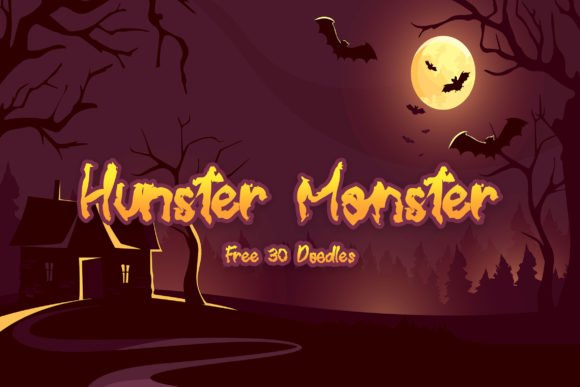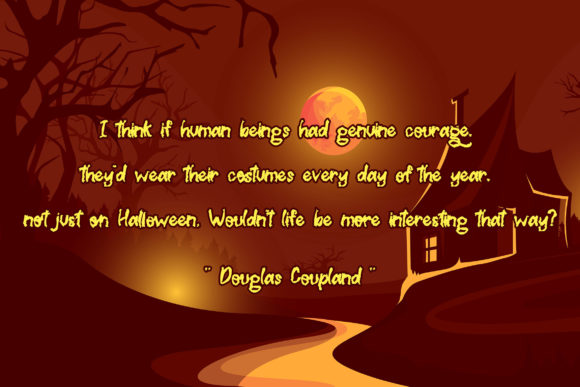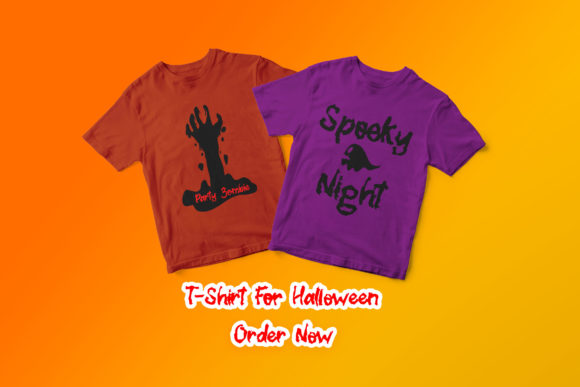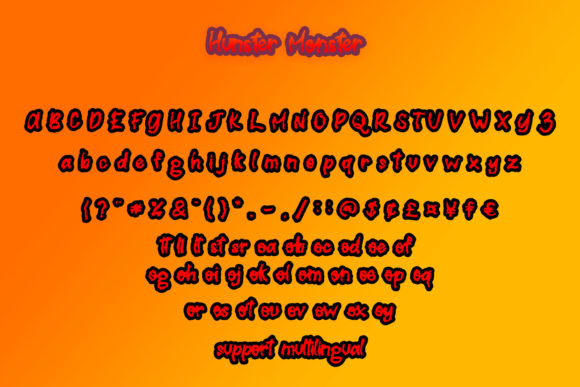
The Monster in Your Fonts: Unlocking Creativity with Hunster Monster Font
As designers, we’ve all been there – staring at a blank canvas, trying to conjure up the perfect design. But sometimes, it’s not about what you add, but what you use. For me, that magic moment came when I stumbled upon Hunster Monster Font. It was like unleashing a monster from the depths of creativity – and I knew I had to share it with the world.
Hunster Monster Font is a unique display font that’s tailor-made for those spooky, kooky, and just plain fun designs. Its quirky characters and bold lines are perfect for adding a touch of personality to your Halloween-themed projects. Whether you’re designing invitations, party decorations, or social media graphics, Hunster Monster Font is the perfect tool to bring your ideas to life.
Hunster Monster Font Key Features
- Unique Characteristics: The Hunster Monster Font features a playful, monster-inspired design with bold lines, rounded edges, and a mix of uppercase and lowercase letters, making it perfect for creating fun and quirky designs.
- Font Style: The font is available in a single style, but it can be used to create a variety of effects, from bold and playful to subtle and elegant, depending on the context and design application.
Hunster Monster Font Review
First impressions of the Hunster Monster Font are…mixed. Let’s start with the positives:
- ✨ The font has a unique, playful vibe that could be great for kids’ projects or entertainment-related designs.
- ✨ The Hunster Monster Font comes in a variety of weights and styles, making it easy to mix and match for different design needs.
- ✨ The font is highly customizable, with options for adjusting letter spacing and kerning.
- ⚠️ The Hunster Monster Font is not ideal for professional or corporate designs, as it may come across as too childish or cartoonish.
- ⚠️ The font’s unique style can be overwhelming if used in large blocks of text, making it better suited for headings or accents.
- ⚠️ Some characters may not be as well-designed as others, which could affect the overall quality of the font.
Overall, I’d say the Hunster Monster Font is a fun, quirky option that’s best suited for creative projects where a playful vibe is desired. While it’s not perfect, it could be a great addition to a designer’s toolkit for the right project.
The Hunster Monster Font is perfect for:
- Children’s books and educational materials.
- Playful advertisements and marketing materials.
- Fun and creative social media posts.